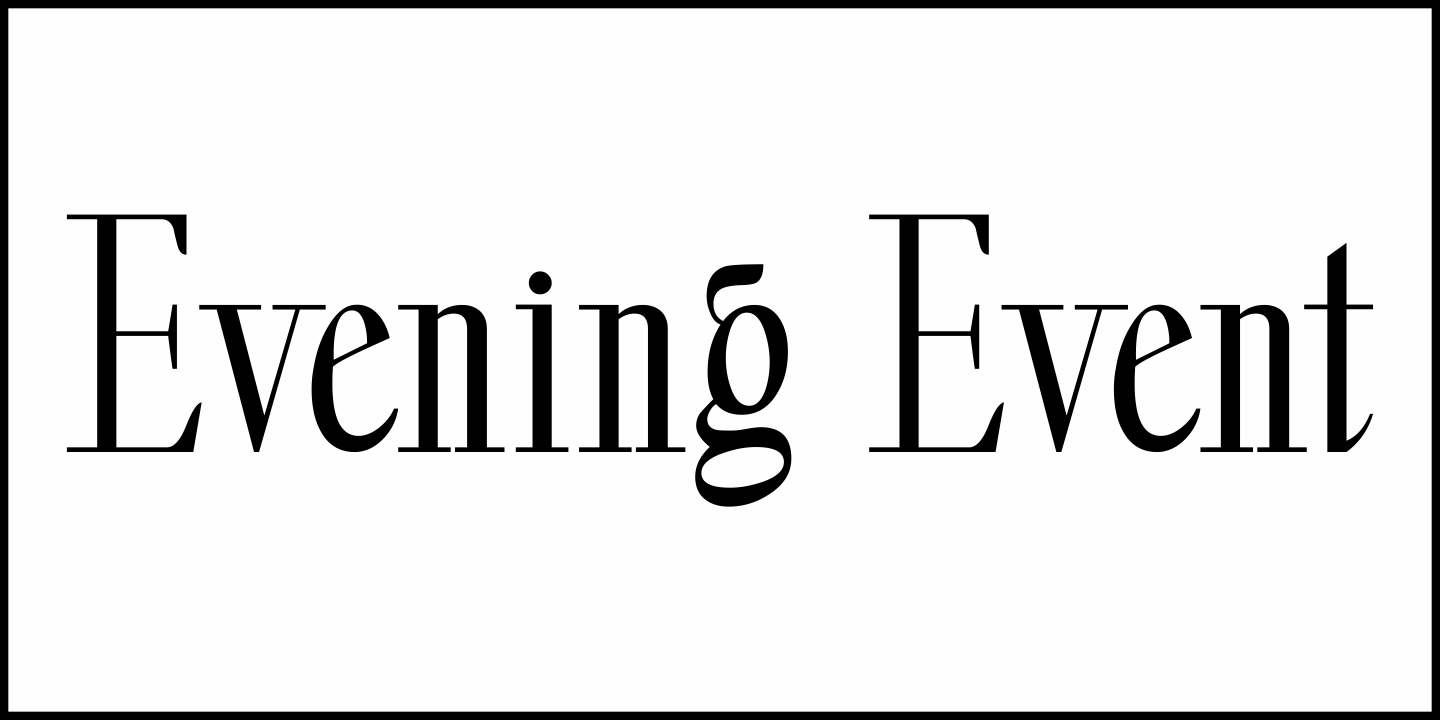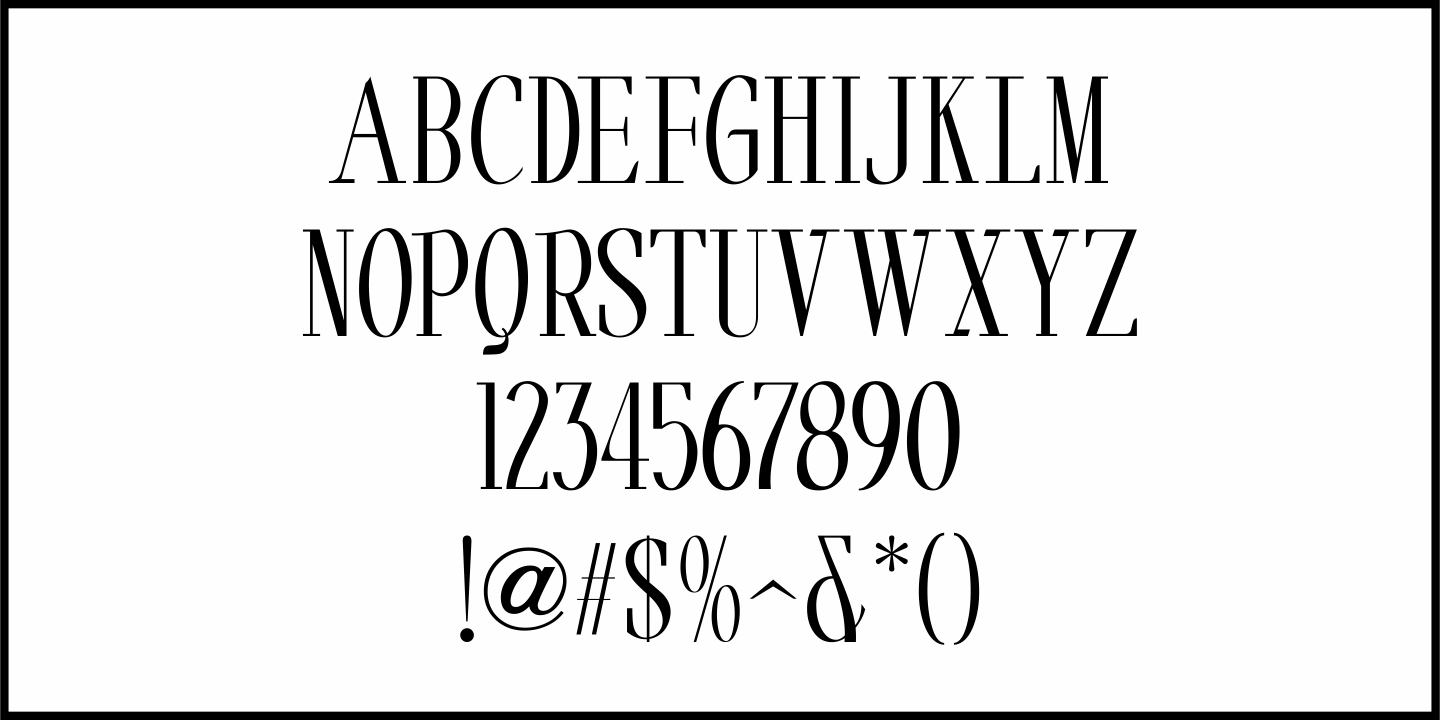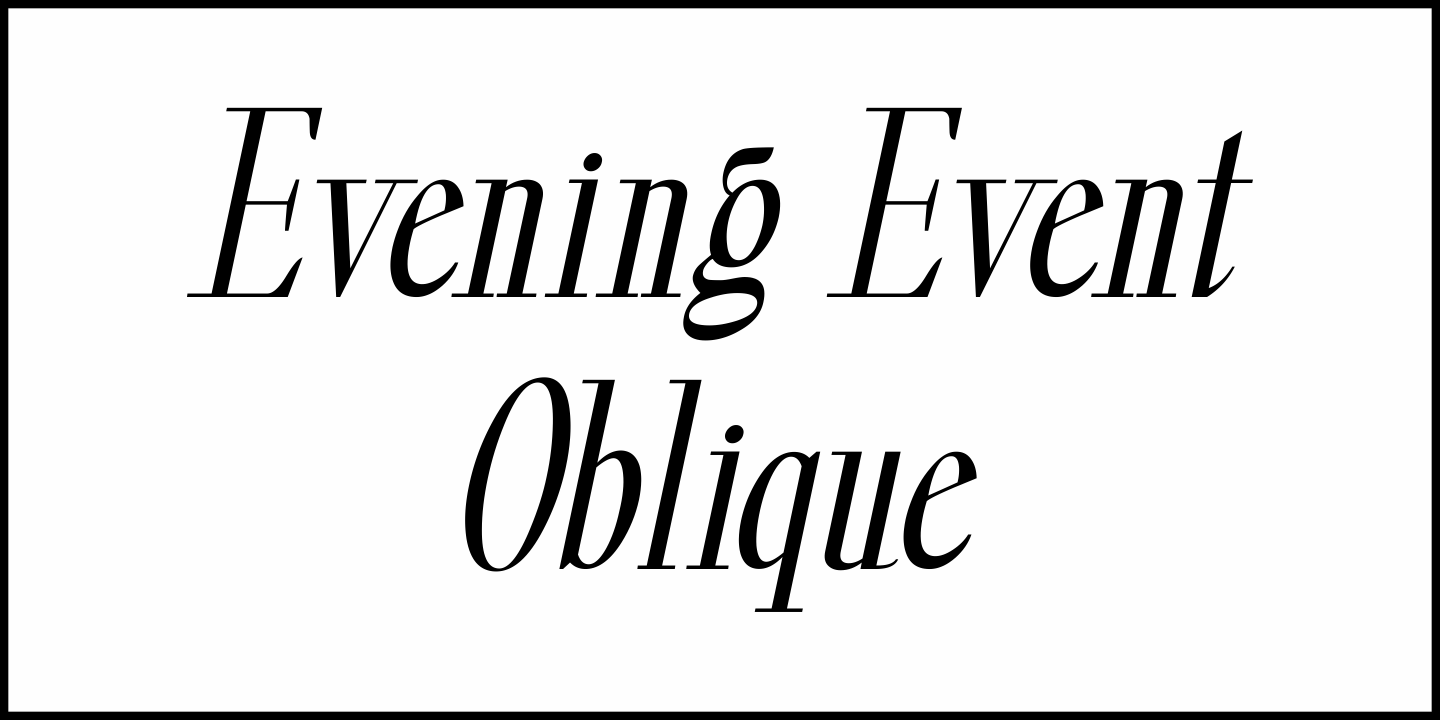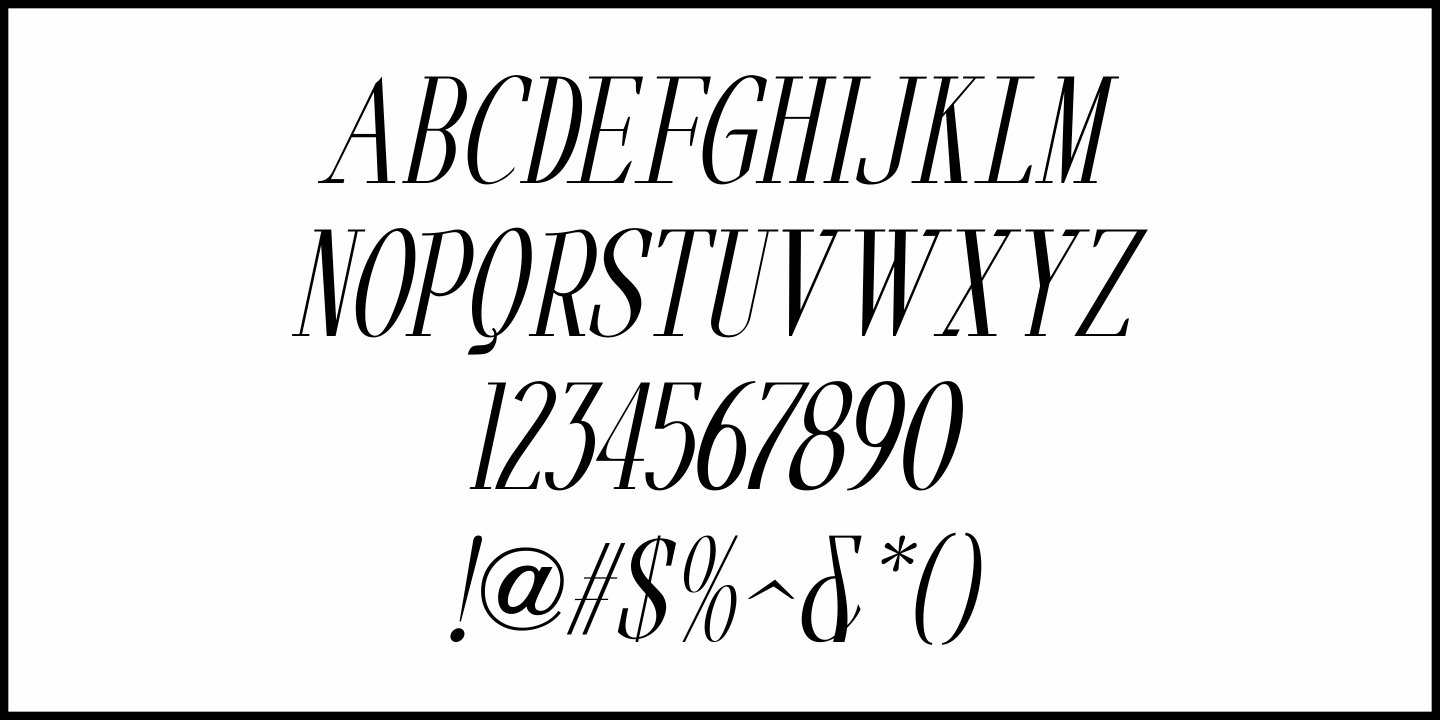
Evening Event
Hand lettering from the title credits for the 1950 film “All about Eve” were the inspiration for Evening Event JNL, which is available in both regular and oblique versions.
The font’s name is an (unintended) double-homage to the film’s title, for the first part of both words include “Eve”.